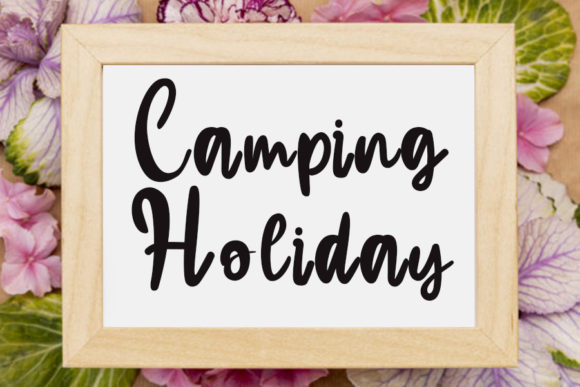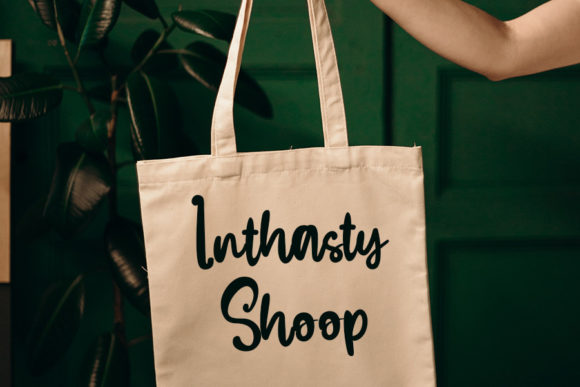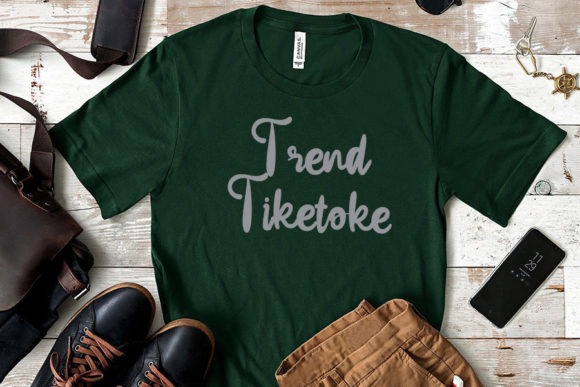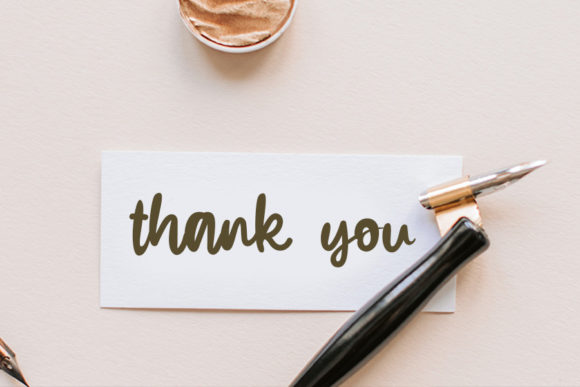
Introduction to Fun Stuff Font
Fun Stuff is a lovely and delicate handwritten font that exudes elegance and class.
This font was particularly crafted for those who need a beautiful and refreshing look to their designs .
Key Features of Fun Stuff Font
Why Choose Fun Stuff Font?
Fun Stuff Font offers exceptional quality and versatility, making it a valuable addition to your design toolkit. Whether you’re creating for personal projects or commercial use, Fun Stuff Font delivers professional results.